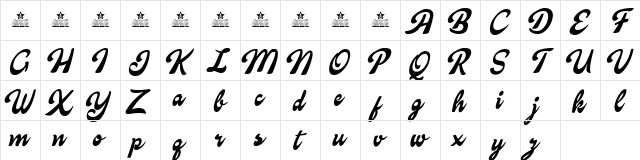
Candy Shop Black Personal Use Regular
| Foundry | Billy Argel |
| Designer | Billy Argel |
Design Context for Candy Shop Black Personal Use Typeface
Candy Shop Black Personal Use is a composed and adaptable typeface that performs quietly and consistently across a wide range of design contexts.